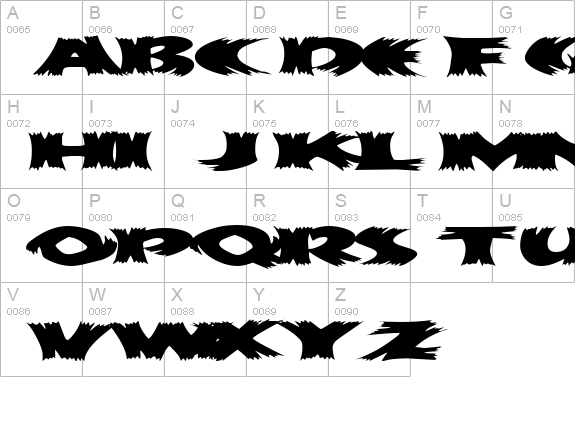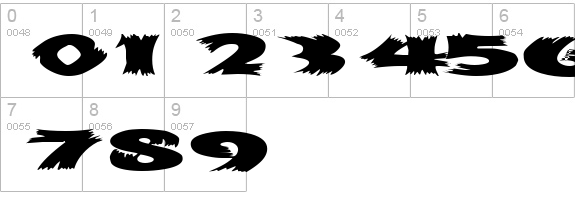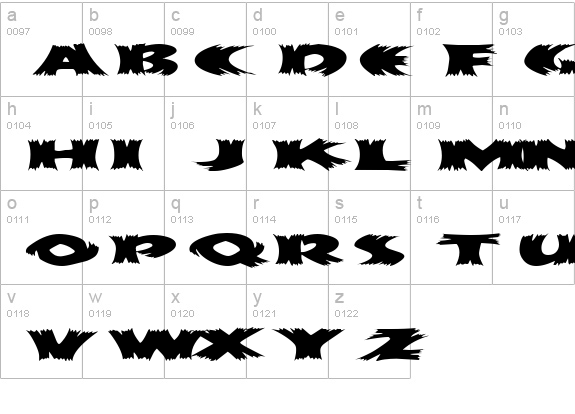
ScarecrowExtended Font Details
Introducing ScarecrowExtended, a captivating font that exudes a unique blend of modernity and vintage charm. This font is designed to leave a lasting impression, with its bold, distinctive letterforms that command attention and evoke a sense of intrigue. With its extended character set, ScarecrowExtended offers a wide range of possibilities for your creative projects. From eye-catching headlines to impactful logos, from stylish packaging to artistic posters, this font is versatile enough to bring your ideas to life in remarkable ways. But what sets ScarecrowExtended apart is not just its stunning aesthetics; it's also the fact that it is completely free. Yes, you read that right! ScarecrowExtended is freely available to download at FontsMarket.com, making it accessible to designers, artists, and enthusiasts alike. There are no hidden fees or complicated licensing agreements – just the freedom to create without constraints. Whether you're a professional designer looking for a font that stands out from the crowd or a passionate hobbyist seeking to add a touch of elegance to your personal projects, ScarecrowExtended is here to fulfill your typographic desires. Its carefully crafted curves and meticulous attention to detail make it a true masterpiece that will elevate your designs to new heights. So why wait? Embrace the beauty of ScarecrowExtended and unleash your creativity like never before. Download this exceptional font today at FontsMarket.com and experience the freedom to design without limits.